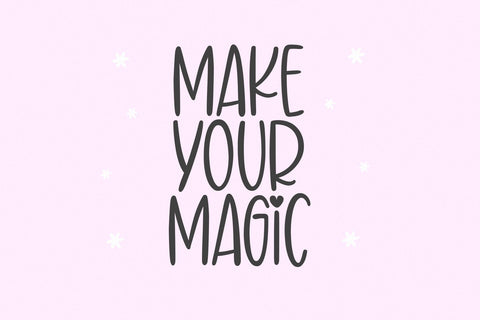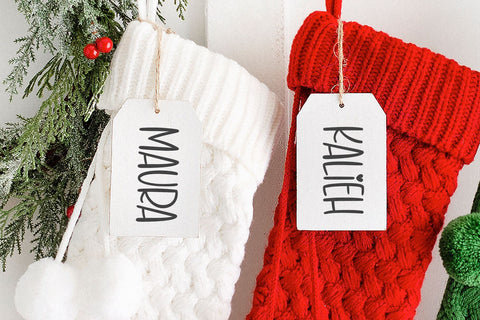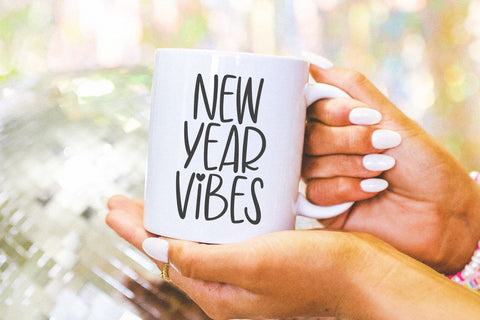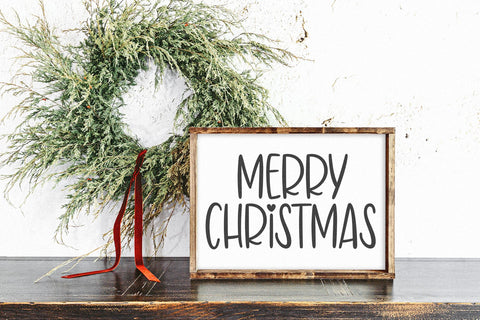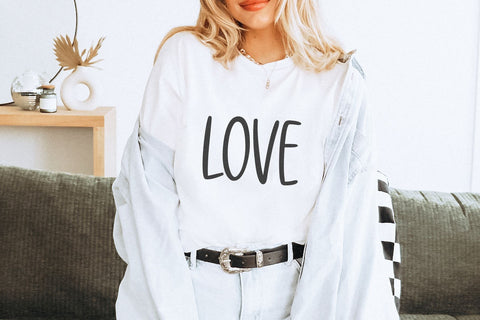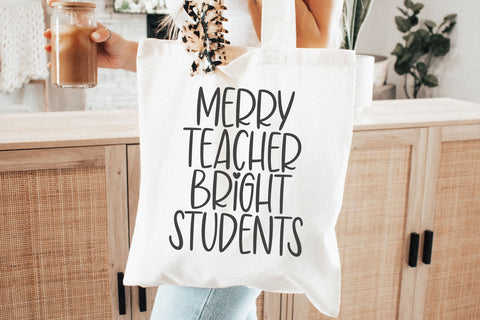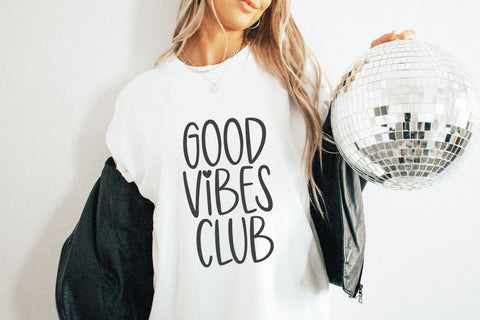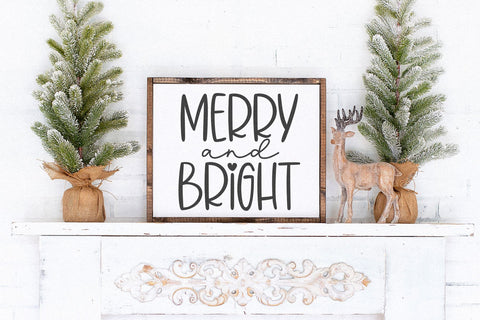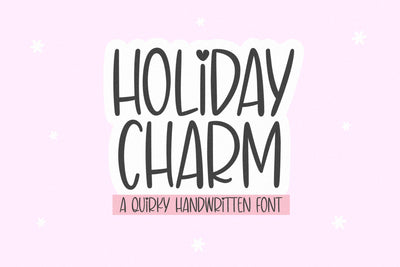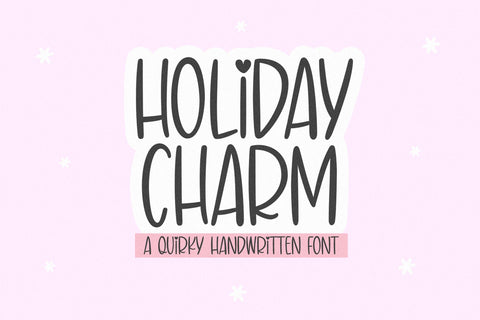
Holiday Charm - Cute Quirky Font
Holiday Charm is a fun quirky font.
This font is perfect for your craft projects, Christmas designs, svg files, procreate, teachers, social media quotes, shirts, stickers, and more!